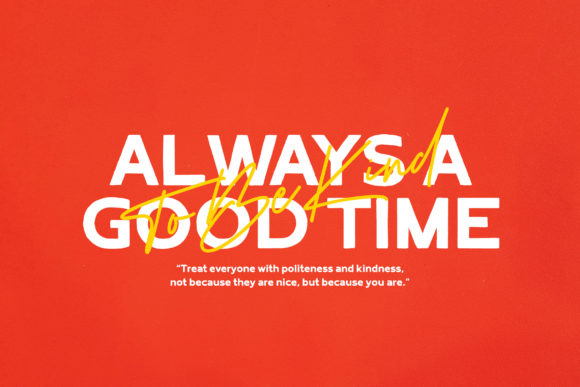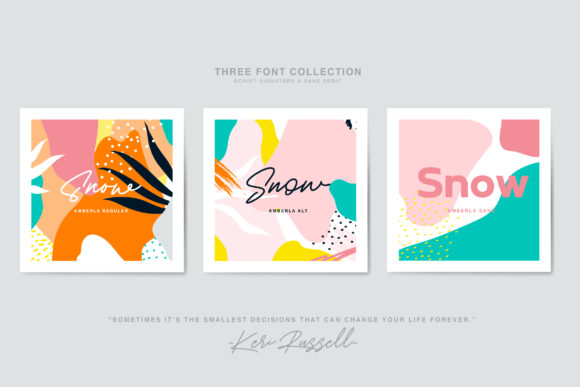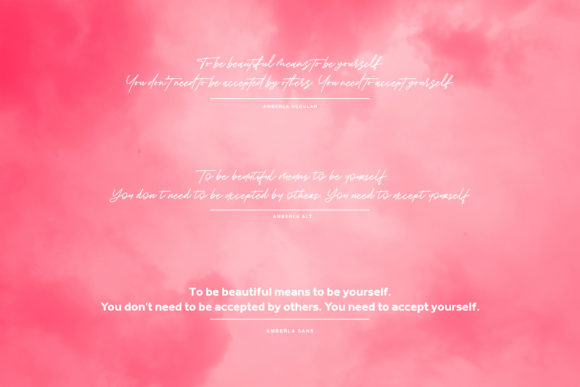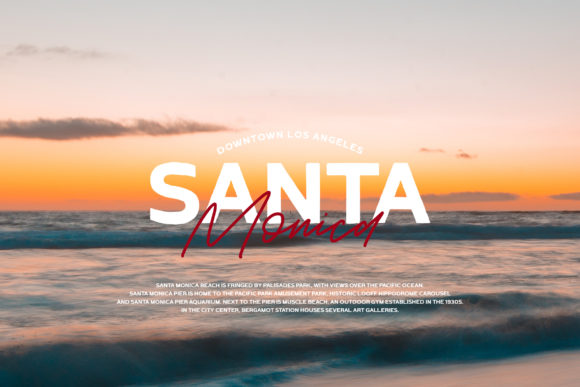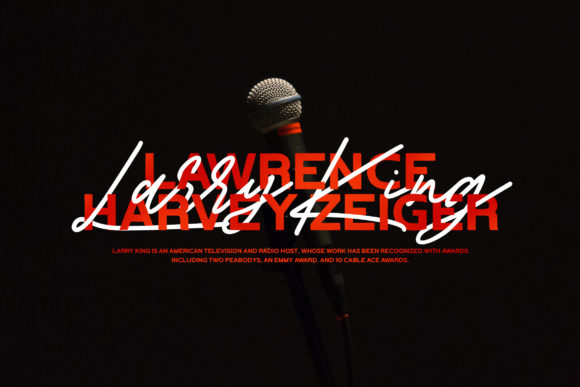
Amberla Duo Font
About Amberla Duo Font
Amberla is a stunning font duo, featuring a cool sans and an authentic script font. Combine them to create one-of-a-kind artworks!